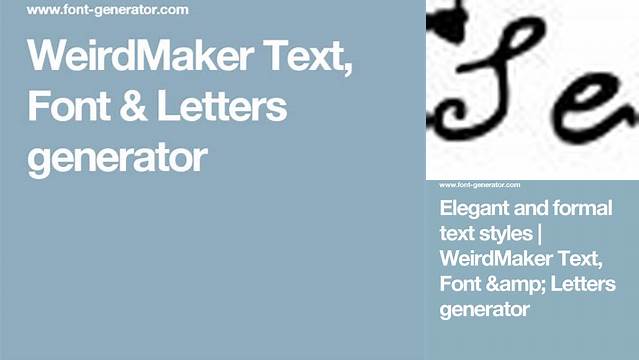
Weirdmaker: Unique Font & Letter Generator
Hey guys! Ever wanted to spice up your social media posts or add a little pizzazz to your designs? Well, you've stumbled upon the right place! Let's dive into the amazing world of Weirdmaker – your go-to tool for generating unique text fonts and letters. Whether you're a social media guru, a graphic designer, or just someone who loves to experiment, Weirdmaker has something special for you. Ready to get weird?
What is Weirdmaker Text Font Generator?
The Weirdmaker Text Font Generator is an online tool designed to transform ordinary text into extraordinary designs. It allows you to convert standard characters into a variety of unique and stylized fonts. This is perfect for adding flair to social media posts, creating eye-catching headers, or simply experimenting with different typographical styles. With a user-friendly interface, you can easily input your text and instantly see it transformed into numerous creative font options. The tool is built to be accessible for both beginners and experienced designers, making it a versatile resource for anyone looking to enhance their textual content. Imagine taking a simple quote and turning it into a piece of art – that's the power of the Weirdmaker Text Font Generator!
Exploring Different Types of Weird Fonts
Exploring different types of weird fonts can open up a whole new world of creative possibilities for your projects. These fonts range from quirky and playful to edgy and futuristic, providing a wide spectrum of styles to choose from. For instance, you might find fonts that mimic handwriting, distorted text, or even fonts that incorporate symbols and icons. Each font type can evoke a different mood or message, allowing you to tailor your text to perfectly match the theme of your design. Whether you're working on a poster, a website, or a social media graphic, experimenting with weird fonts can help you capture attention and stand out from the crowd. Plus, it's just plain fun to see how different fonts can completely change the look and feel of your words.
How to Use a Letter Generator for Unique Designs
Using a letter generator for unique designs is surprisingly straightforward, and it can significantly enhance your creative projects. The process typically involves typing your desired text into the generator, selecting from a range of available font styles, and then copying the generated text into your design. Many letter generators also offer customization options, allowing you to adjust the size, color, and spacing of the letters to suit your specific needs. These tools are especially useful for creating logos, banners, and other visual elements where typography plays a crucial role. By leveraging a letter generator, you can quickly and easily create unique and eye-catching designs without needing advanced graphic design skills. It's a fantastic way to add a personal touch to your projects and make them truly stand out.
The Benefits of Using Unique Text Styles
The benefits of using unique text styles are numerous, especially in today's visually saturated world. Unique text styles can help your content grab attention, convey personality, and reinforce your brand identity. By using distinctive fonts and typography, you can create a memorable impression that sets you apart from competitors. This is particularly important in marketing and advertising, where standing out is essential for capturing audience interest. Moreover, unique text styles can enhance readability and engagement by making your content more visually appealing. Whether you're designing a website, creating social media posts, or developing marketing materials, incorporating unique text styles can significantly improve the overall impact of your message.
Weirdmaker vs. Traditional Font Libraries
When comparing Weirdmaker to traditional font libraries, the key difference lies in the level of customization and uniqueness offered. Traditional font libraries provide a wide selection of standard fonts that are commonly used across various platforms. While these fonts are versatile and reliable, they may lack the distinctiveness needed to make your content truly stand out. Weirdmaker, on the other hand, specializes in generating unconventional and stylized fonts that are less common. This allows you to create text that is more eye-catching and memorable. Additionally, Weirdmaker often offers more flexibility in terms of customization, allowing you to tweak and modify fonts to suit your specific needs. While traditional font libraries are great for everyday use, Weirdmaker is the go-to tool for adding a touch of originality and creativity to your projects.
Creating Eye-Catching Social Media Posts with Weird Fonts
Creating eye-catching social media posts with weird fonts is a surefire way to boost engagement and attract attention. In the fast-paced world of social media, standing out from the crowd is essential for capturing the interest of your audience. Using unique and unconventional fonts can make your posts more visually appealing and memorable. Experiment with different font styles to find the ones that best reflect your brand's personality and message. Whether you're promoting a product, sharing an announcement, or simply posting an update, incorporating weird fonts can help your content cut through the noise and make a lasting impression. Just remember to use fonts that are still legible and easy to read, ensuring that your message is effectively communicated.
Font Generators for Logo Design: A Creative Approach
Font generators offer a creative approach to logo design, providing a wealth of options for creating unique and memorable brand identities. A well-designed logo is crucial for establishing brand recognition and conveying your company's values and personality. By using font generators, you can explore a wide range of typographical styles and find the perfect font to represent your brand. Experiment with different font combinations, sizes, and colors to create a logo that is both visually appealing and representative of your brand. Font generators also allow you to customize fonts to further enhance their uniqueness. This creative approach can help you develop a logo that stands out from the competition and effectively communicates your brand's message.
Text Effects: Adding Depth and Dimension to Your Words
Text effects are a fantastic way to add depth and dimension to your words, making them more visually engaging and impactful. These effects can range from simple shadows and outlines to more complex gradients and textures. By applying text effects, you can transform ordinary text into stunning visual elements that capture attention and enhance the overall aesthetic of your design. Experiment with different effects to find the ones that best complement your font style and the overall theme of your project. Whether you're creating a poster, a website banner, or a social media graphic, incorporating text effects can significantly elevate the visual appeal of your content.
Font Styles for Different Platforms: Web, Print, and Mobile
Choosing the right font styles for different platforms—web, print, and mobile—is crucial for ensuring readability and visual appeal. Each platform has its own unique characteristics and limitations that can impact how fonts are displayed. For web design, it's important to use web-safe fonts or utilize web fonts that are optimized for online viewing. Print design allows for more flexibility, but it's essential to choose fonts that are legible at various sizes and resolutions. Mobile design requires fonts that are clear and easy to read on smaller screens. By considering the specific requirements of each platform, you can select font styles that enhance the user experience and effectively communicate your message.
The Art of Kerning: Adjusting Spacing for Optimal Readability
The art of kerning involves adjusting the spacing between individual letters to achieve optimal readability and visual balance. Kerning is particularly important for letter combinations that appear too close together or too far apart, such as